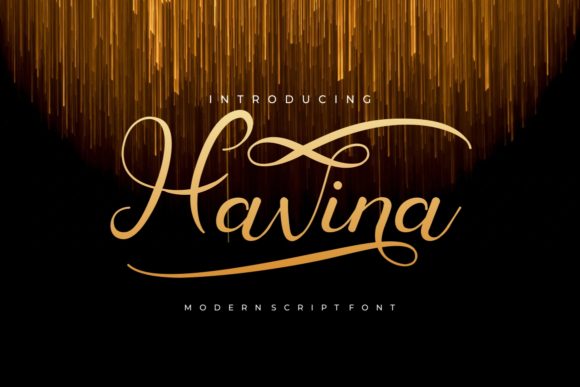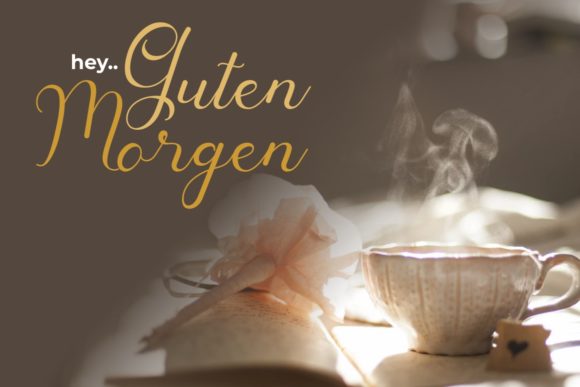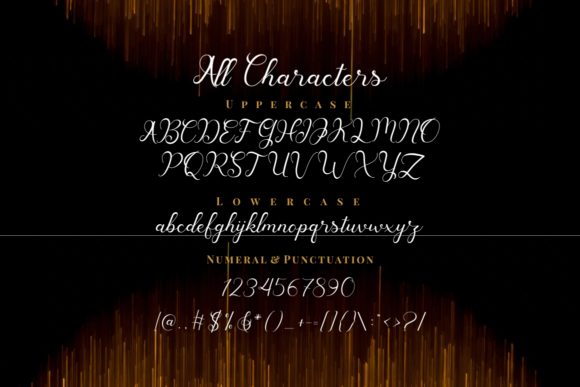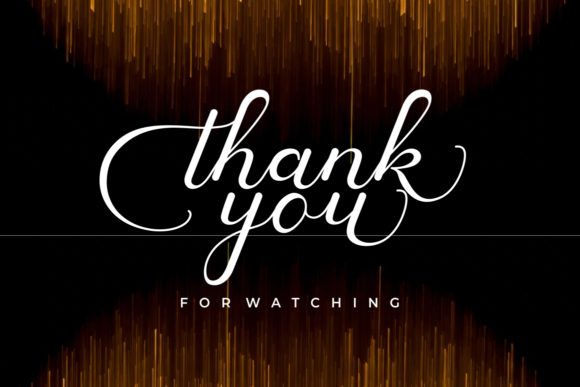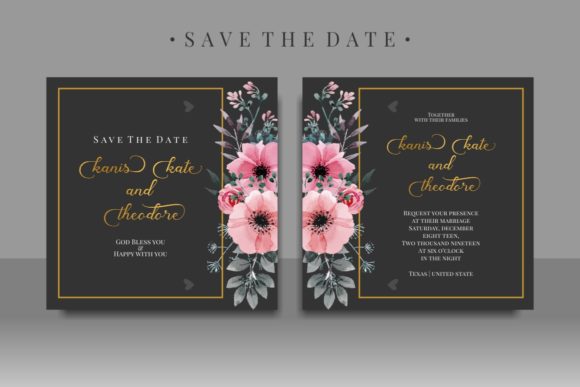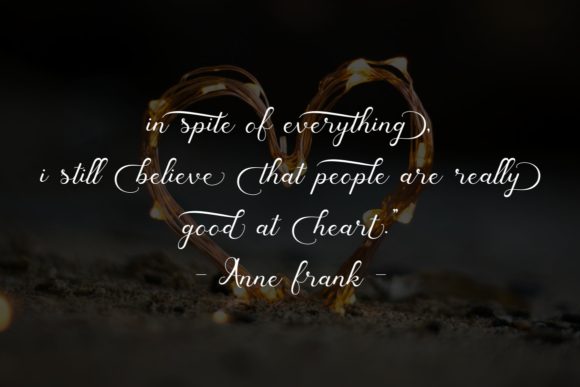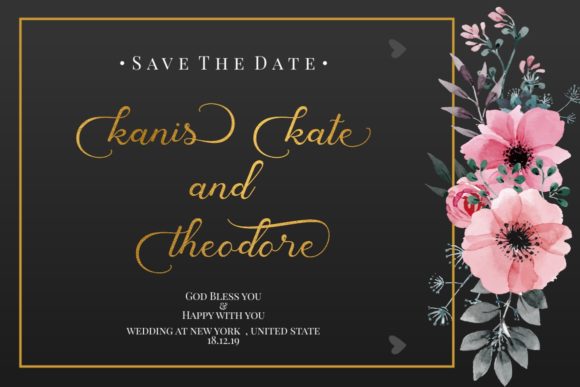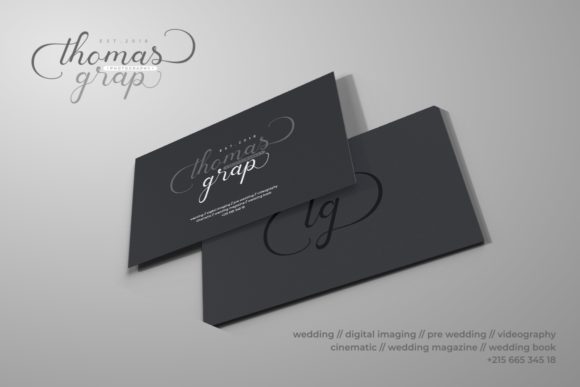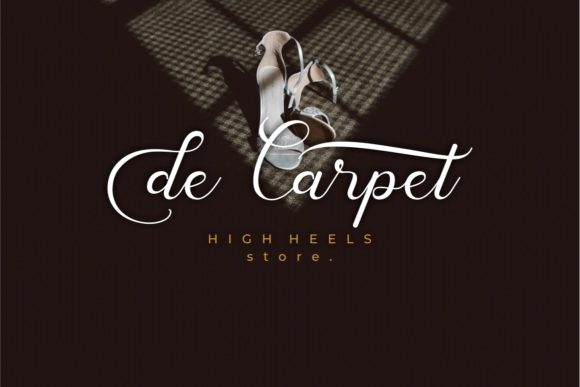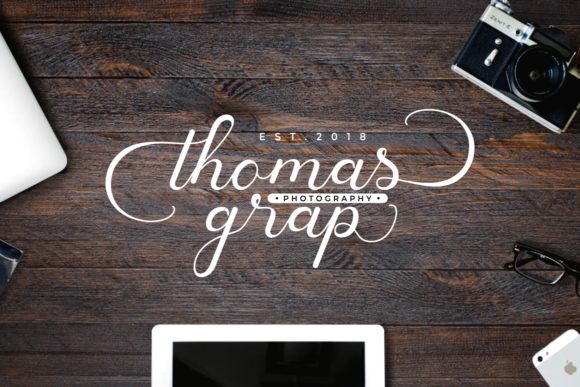
HomeScript FontsHavina Font Script Fonts Havina Font FacebookXPinterestWhatsApp Havina Preview Havina Font Poster 2 Havina Font Poster 3 Havina Font Poster 4 Havina Font Poster 5 Havina Font Poster 6 Havina Font Poster 7 Havina Font Poster 8 Havina Font Poster 9 Havina Font Poster 10 Havina Font Poster 11 Havina Font Poster 12 About Havina Font Havina is a strong and powerful script that will turn any design idea into a true standout! DOWNLOAD ON CREATIVE FABRICAThis font is sold and delivered by Creative Fabrica. Font Canyon may earn a commission if you buy through this link. People also explored Easter Egg Fancy Font Santhania Font Athabasca Font Heft Arbinova Font Allerlei Zierat 3 Font Krafty Kristmas Font California Font Let That Be Enough Font 395 0 TagsHavina Font Previous articleOverfly FontNext articleIntrovery Font LEAVE A REPLY Cancel reply Comment: Please enter your comment! Name:* Please enter your name here Email:* You have entered an incorrect email address! Please enter your email address here Website: Save my name, email, and website in this browser for the next time I comment. Personal Use Free Bebas Neue Font Personal Use Free Read more about this font Strings Personal Use Free Read more about this font Hiters Personal Use Free Read more about this font Shelly Personal Use Free Read more about this font BLOG The 10 Best Handwriting Fonts to Add Personality to Your Designs 10 of the Best Handwriting Fonts for Adding Personality to Your Designs There will undoubtedly be no other better choice than handwriting fonts to give... Free vs Paid Fonts: Why Investing in Premium Fonts Is Worth It 5 Fonts That Will Dominate Design Trends in 2026 To increase your work productivity, choose the most readable fonts.